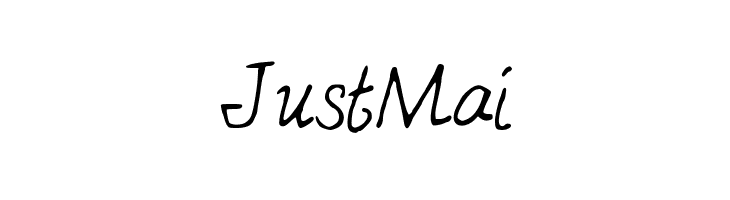
A lively and dynamic handwritten font with fluid strokes.
A casual, playful handwritten font with a dynamic and lively feel.
A playful, handwritten font with rounded edges and a casual style.
A bold, expressive handwritten font with dynamic cursive strokes.
A playful and elegant handwritten script font with fluid, interconnected strokes.